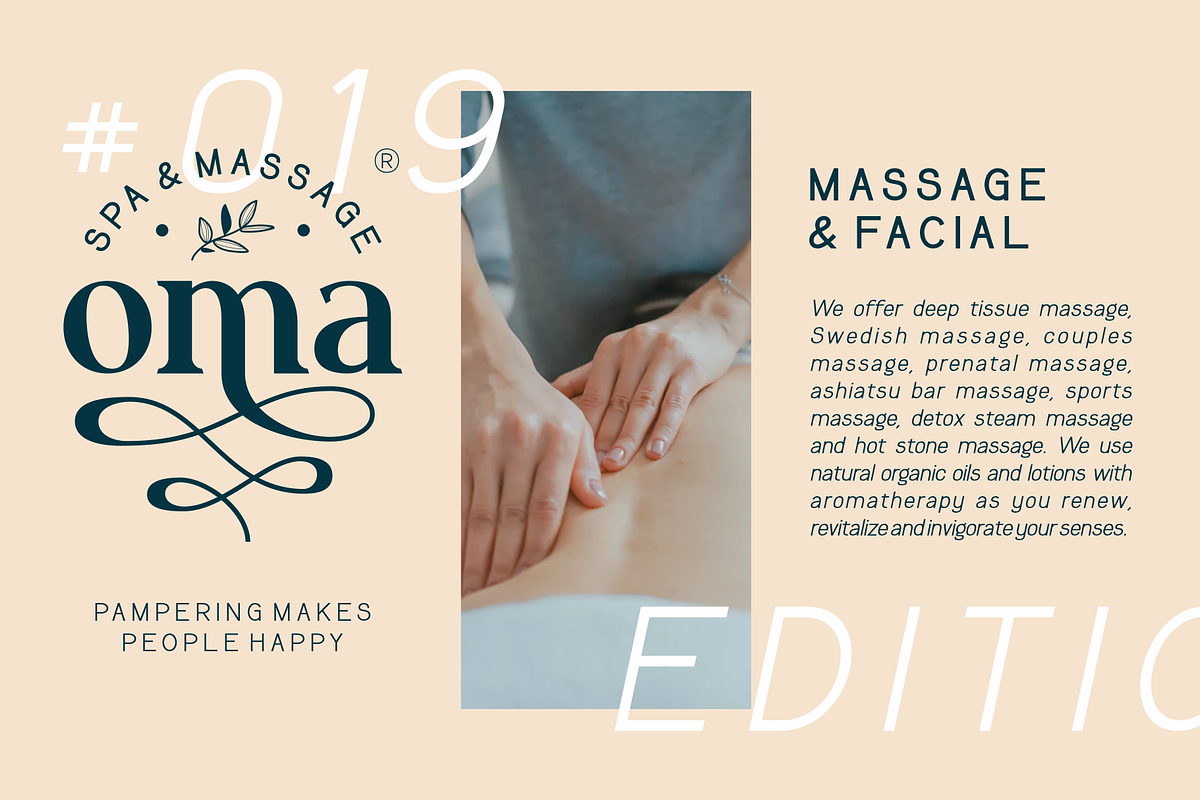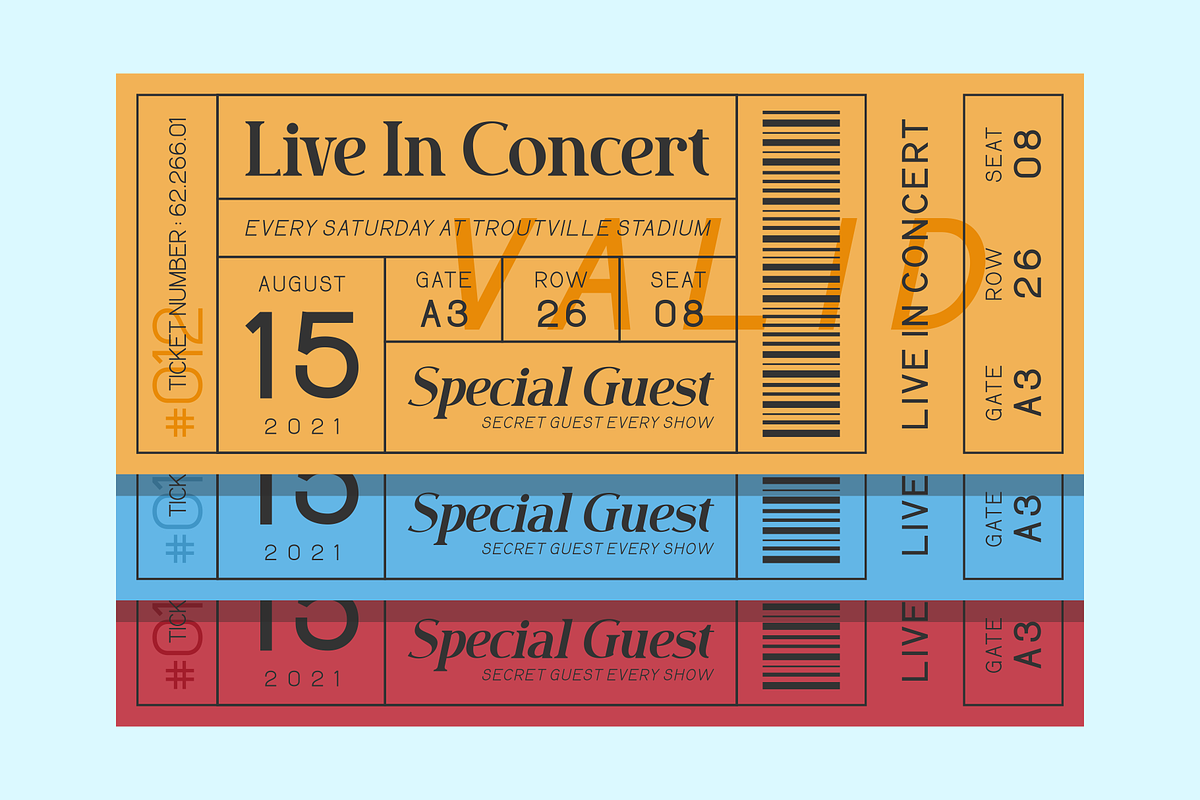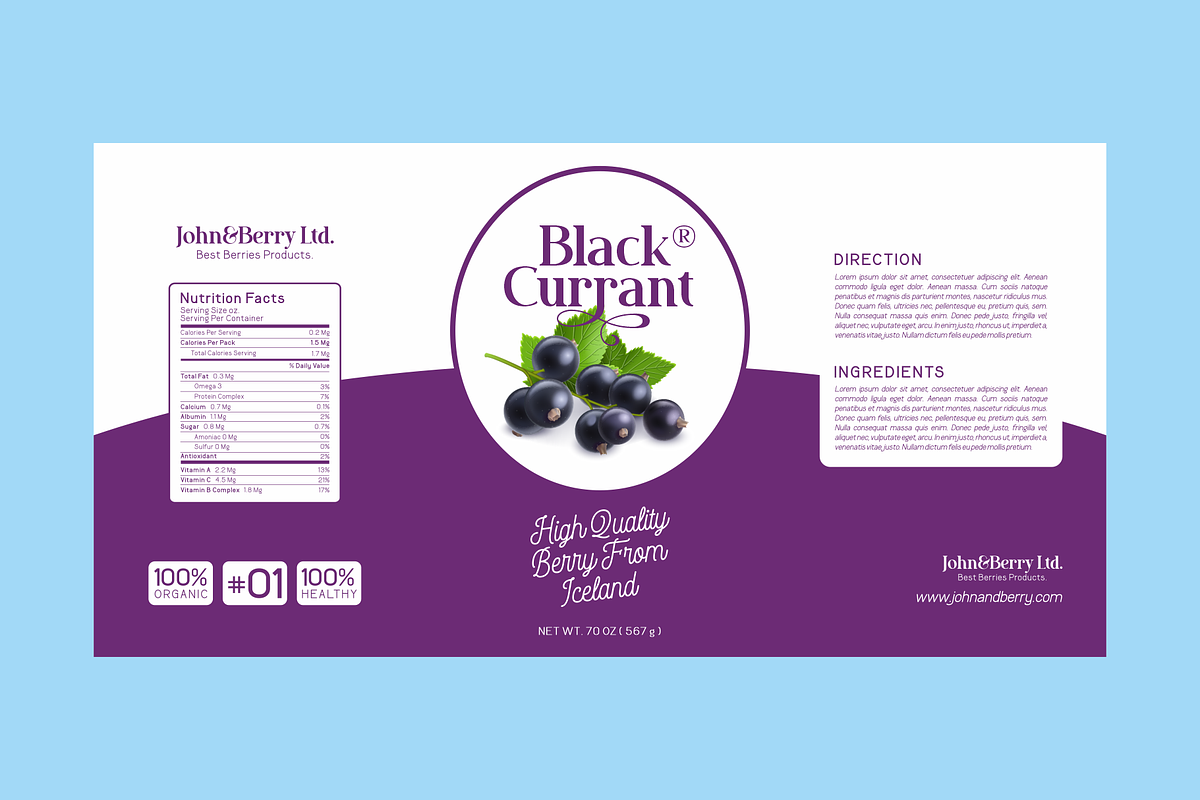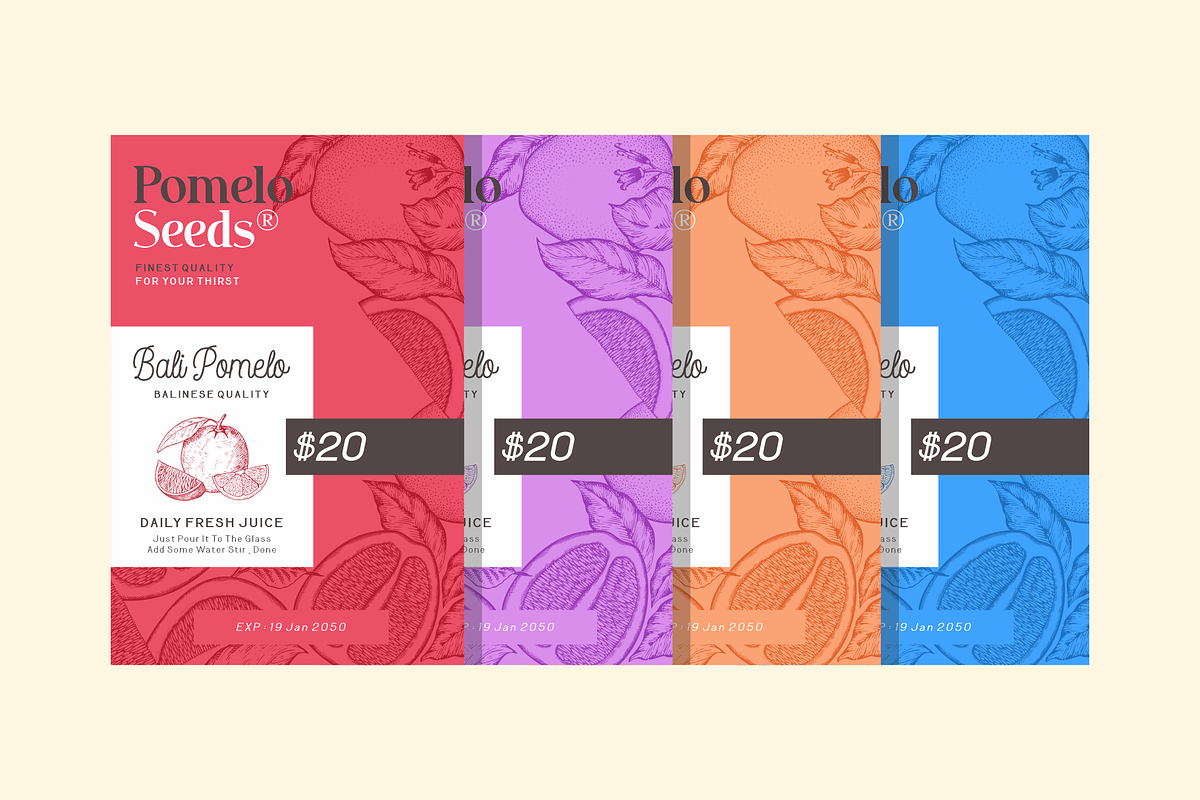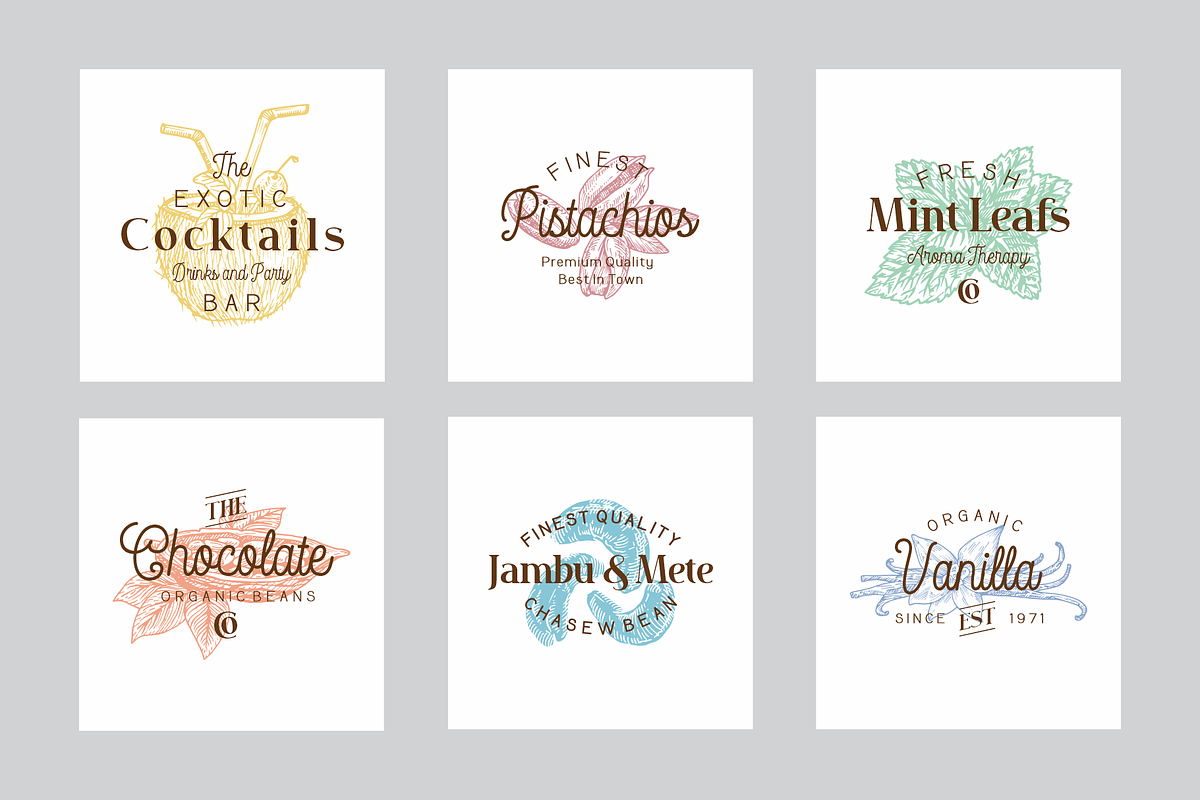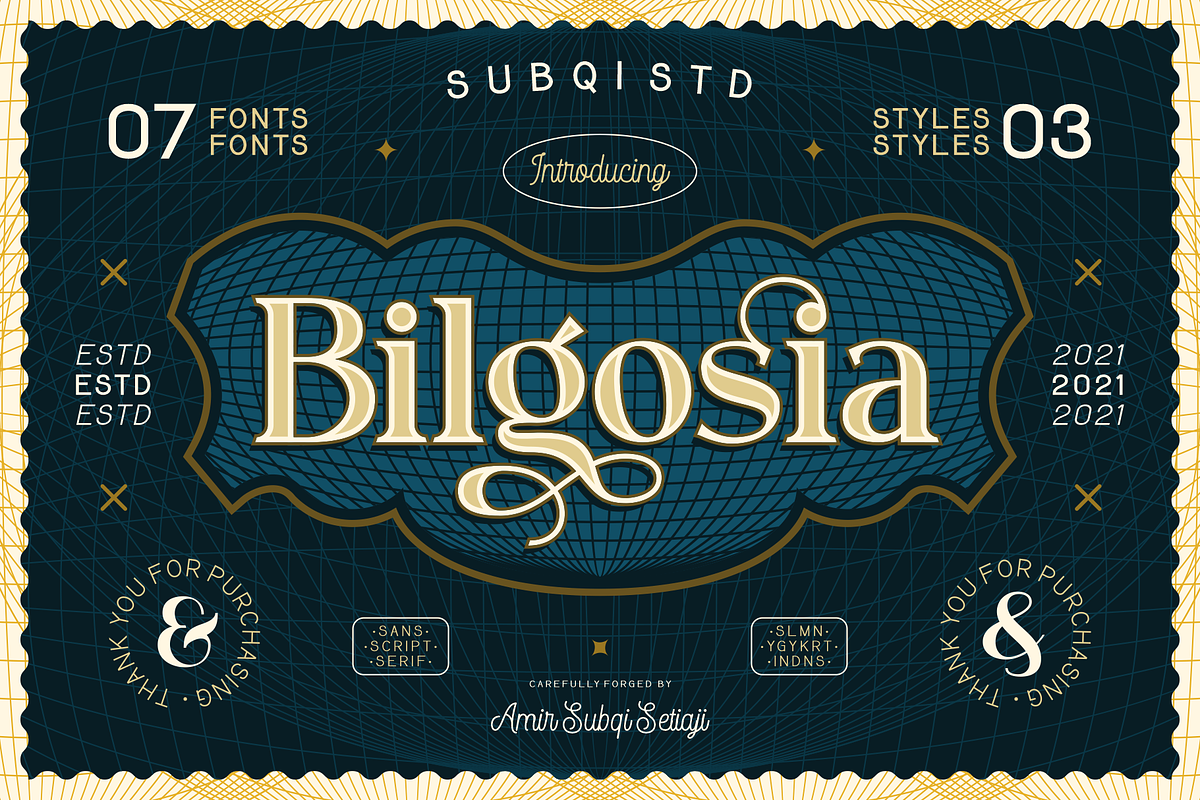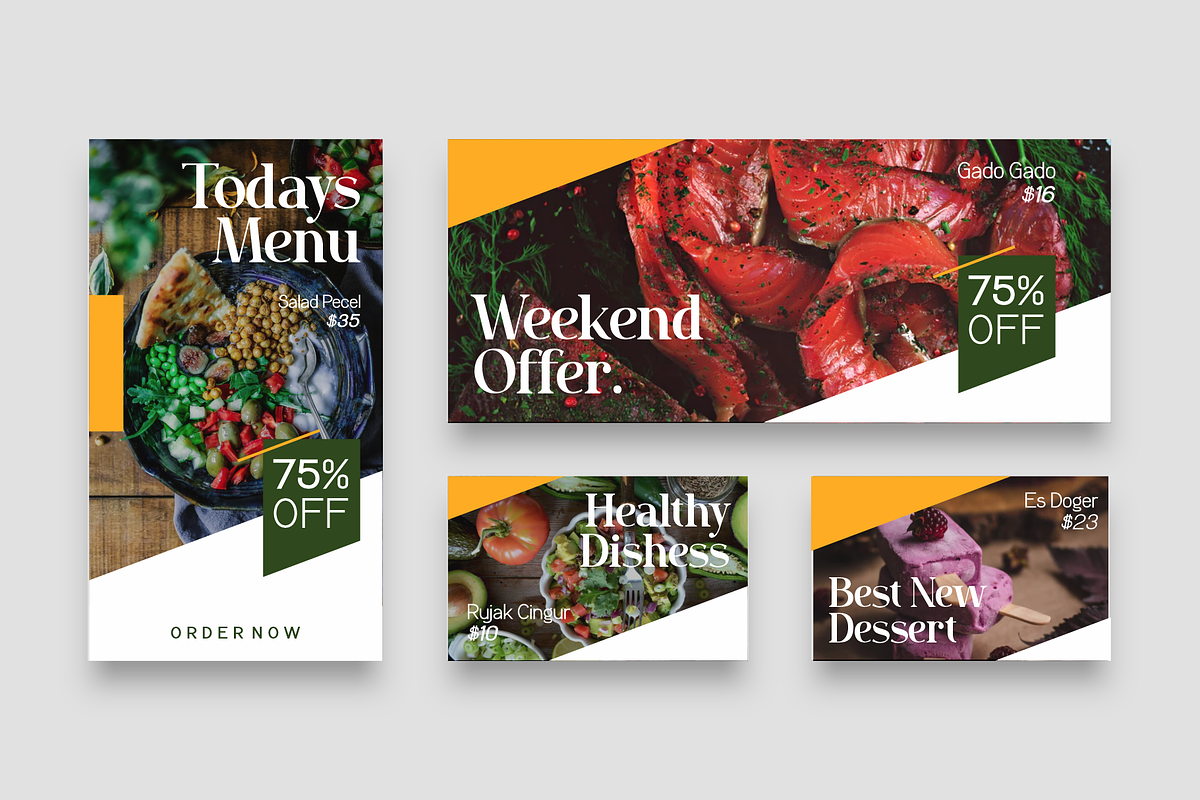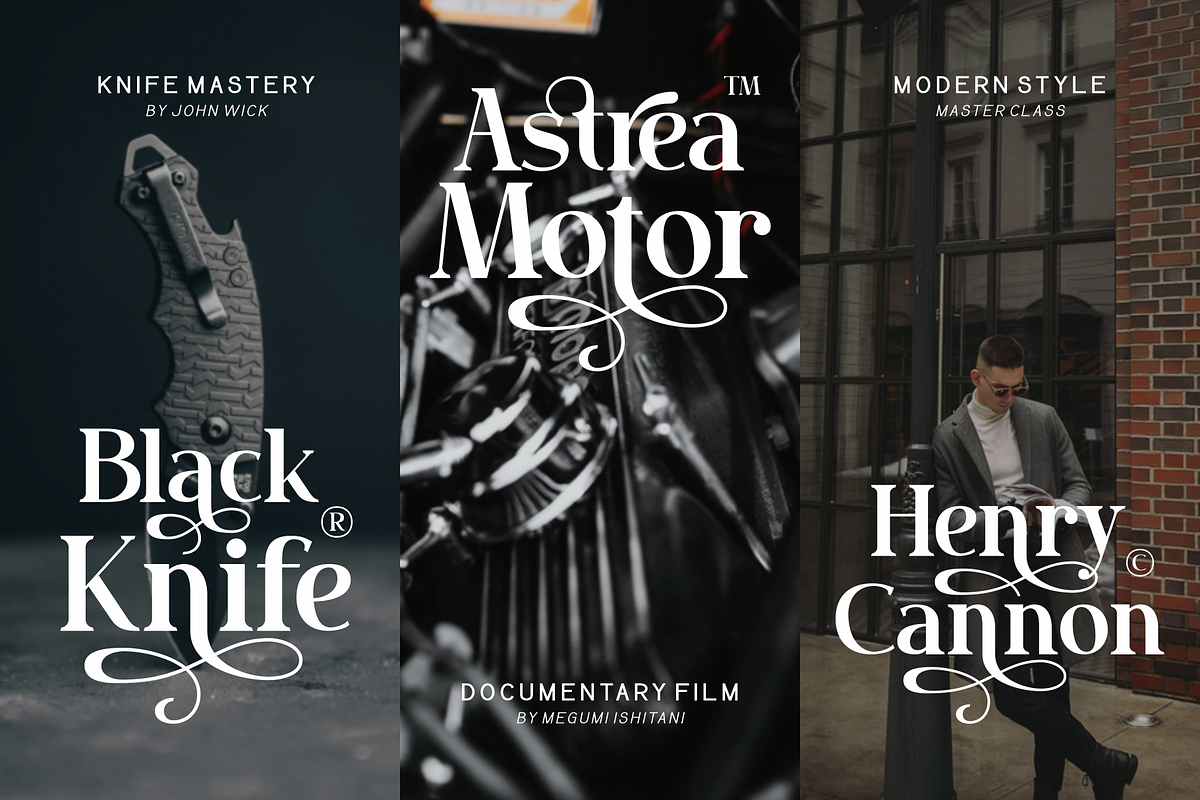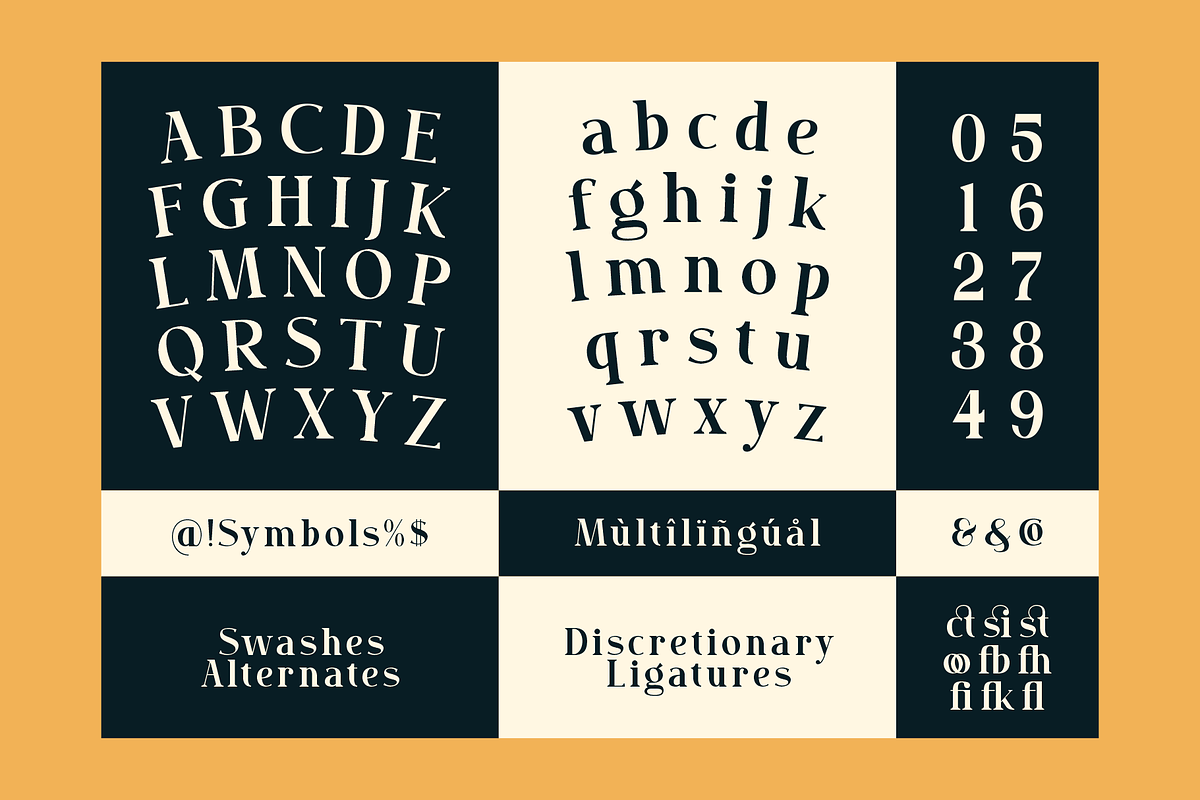
Bilgosia - Display Family Font
Introducing Bilgosia, a Display Family typeface. It contains a Main Serif with Sans and Script as companion. If the whole three combined, it will suitable for any your projects. Each font could be standalone font either. The main serif contains Swashes Alternates , Ligatures and Discretionary Ligatures for your display purposes. Made it from scracth node by node for the best flow. Anyhow we wouldn't talk much here. You could see our display images as references to your projects.